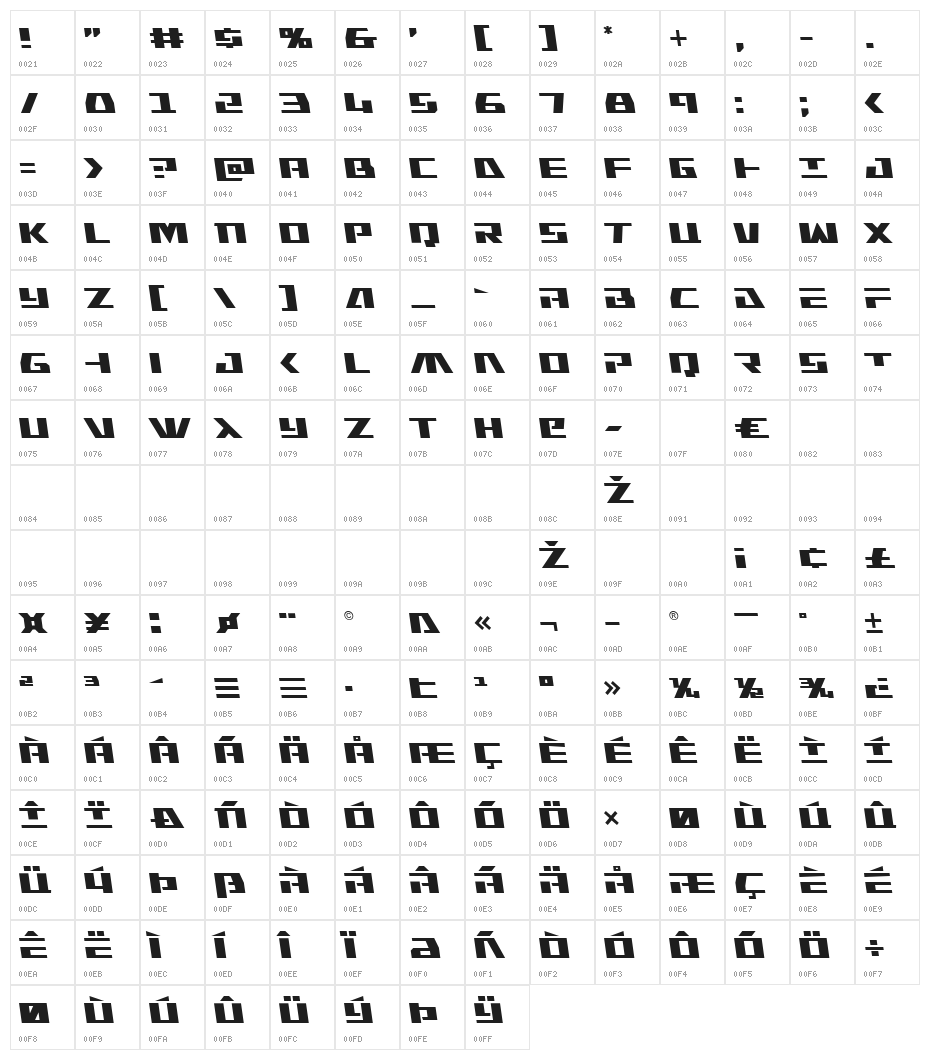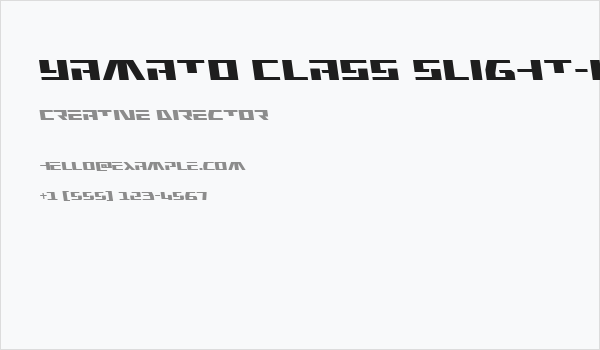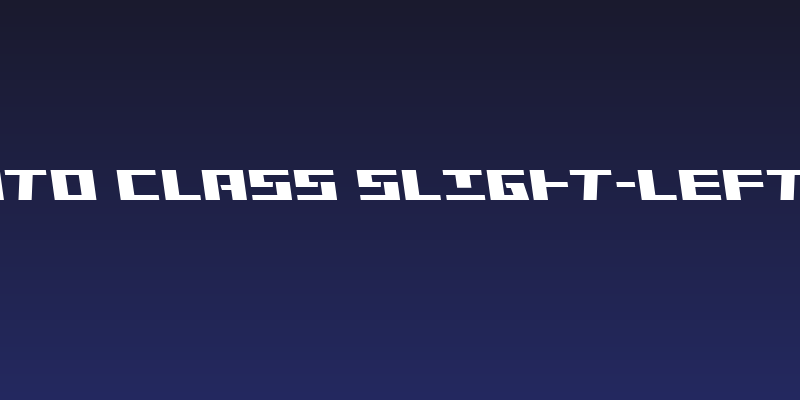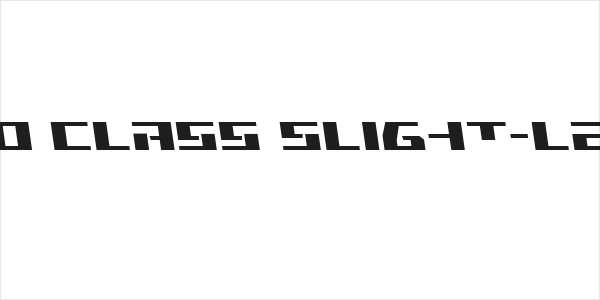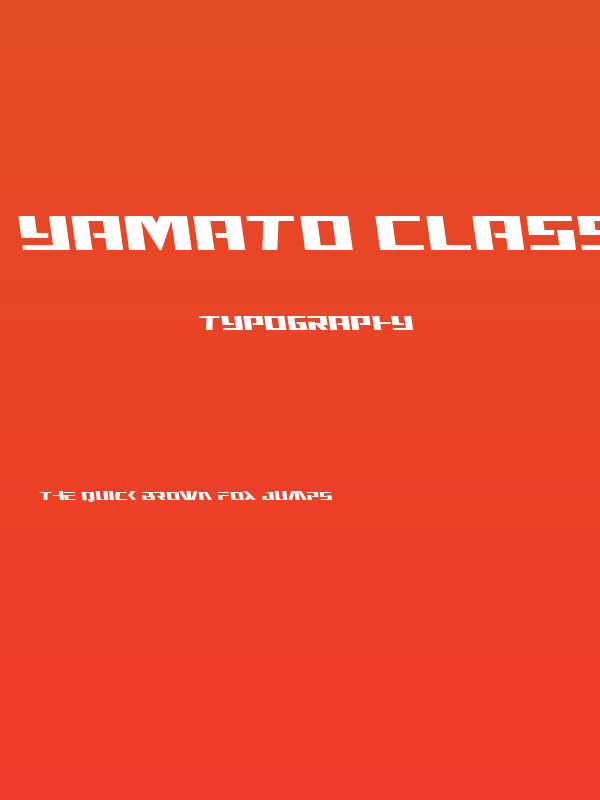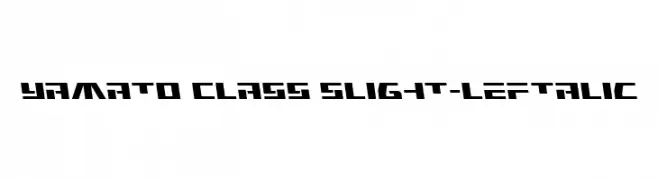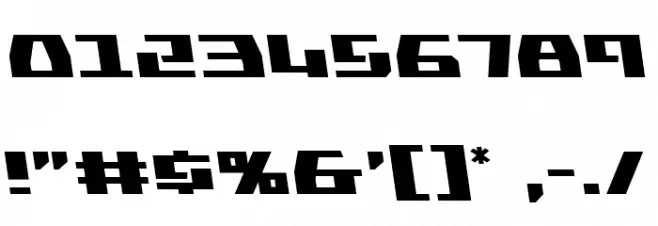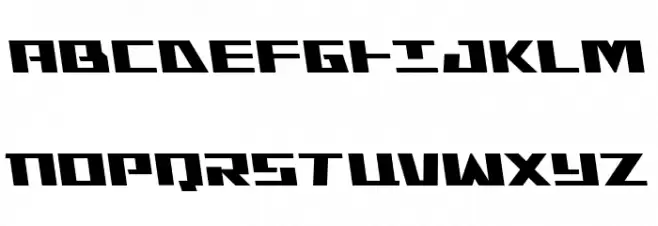
Yamato Class Slight-Leftalic Font
Yamato Class Slight-Leftalic Description
A geometric, angular display typeface with sharp edges and a futuristic, stencil-like appearance. The characters are bold, with consistent stroke thickness and minimal curves, giving a mechanical and industrial feel. The letterforms are wide and blocky, with some disconnected elements and a slight leftward slant.
| Width | Expanded |
| Overall Style | Futuristic, Industrial, Decorative |
| Use Case | Headlines, Logos, Posters, Display text |
| Proposed Projects | Posters, video game titles, sci-fi branding, event flyers, technology logos, signage. |